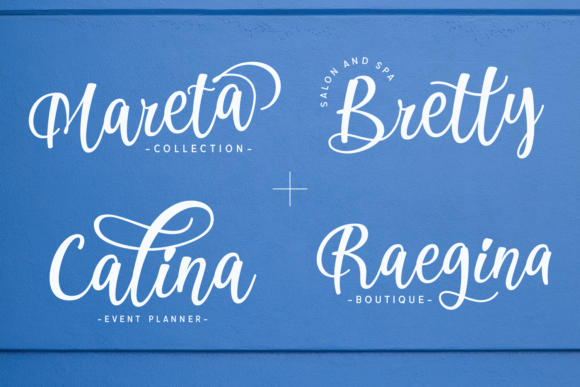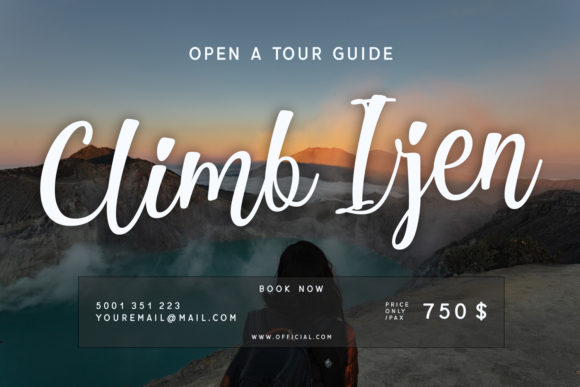
Austalina Font
db-ku.com - Script & Handwritten -- Austalina is a sweet, soft hand-lettered script. The playful rounded characters make it the perfect font for creating stunning crafts. Austalina comes packed with rich swashes, that will allow you to add a decorative touch within seconds.